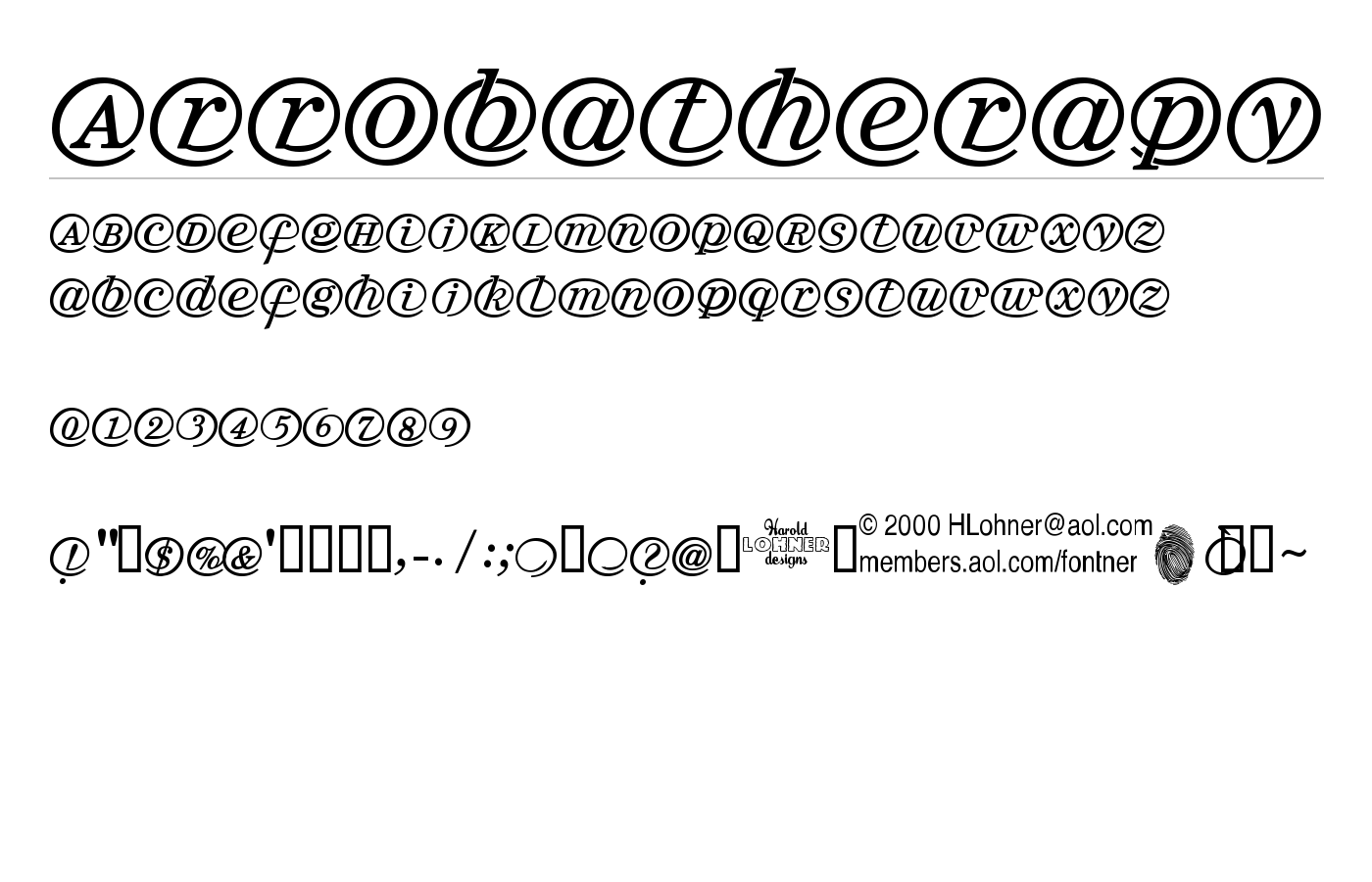
Arrobatherapy is a playful serif font with a distinctive design featuring letters enclosed in bold circular outlines, giving it a quirky and decorative feel. Its elegant italicized strokes combined with a high contrast between thick and thin lines create a lively yet refined look, making it a great choice for unique branding, creative logos, and eye-catching headlines. This font works well where individuality and charm are needed, adding a touch of personality to both print and digital projects.
Arrobatherapy Font